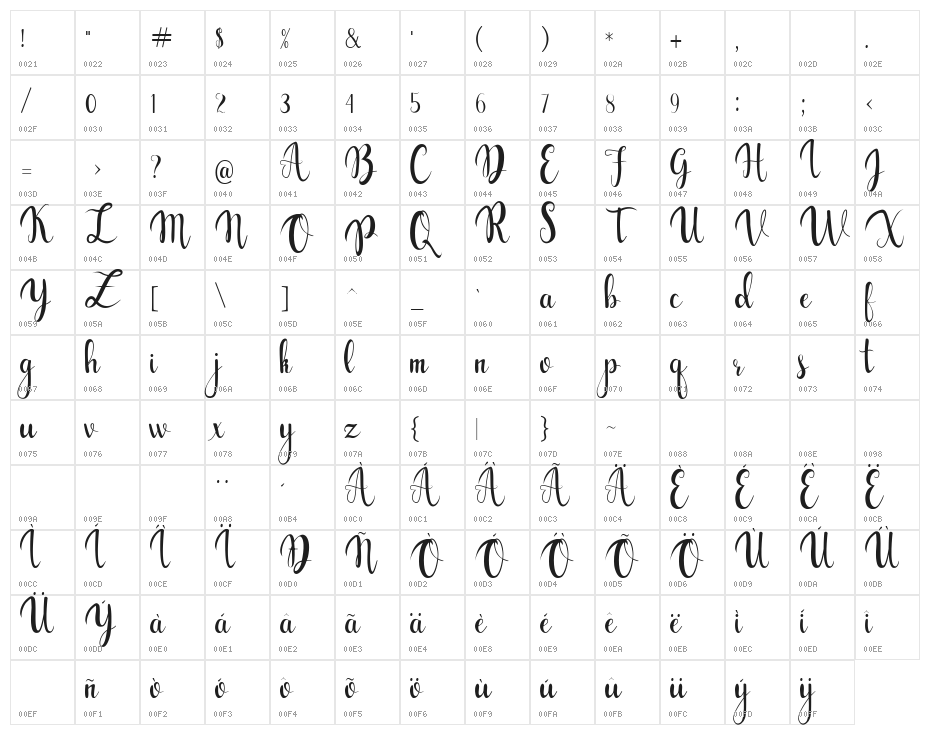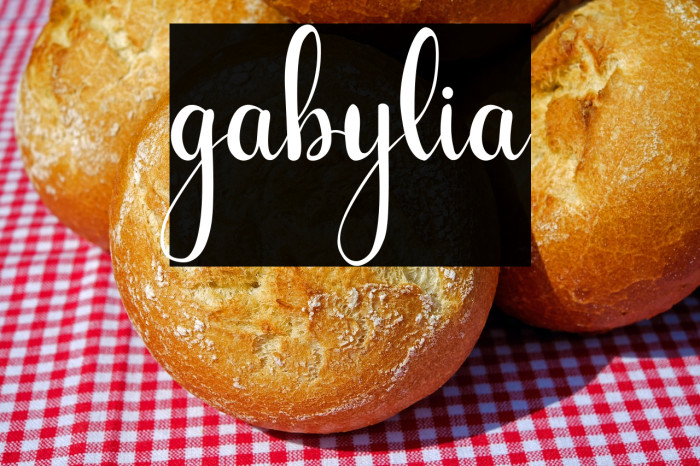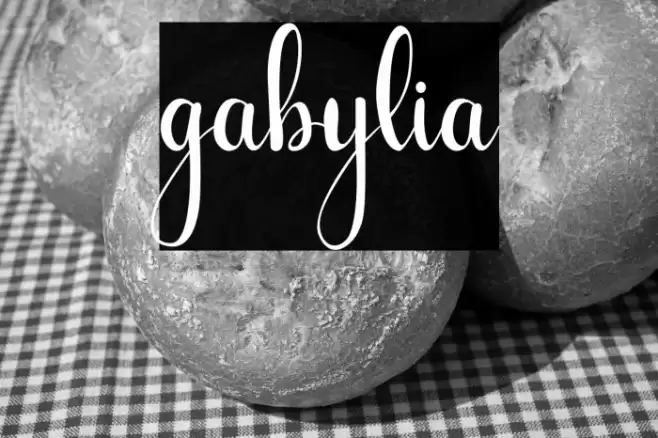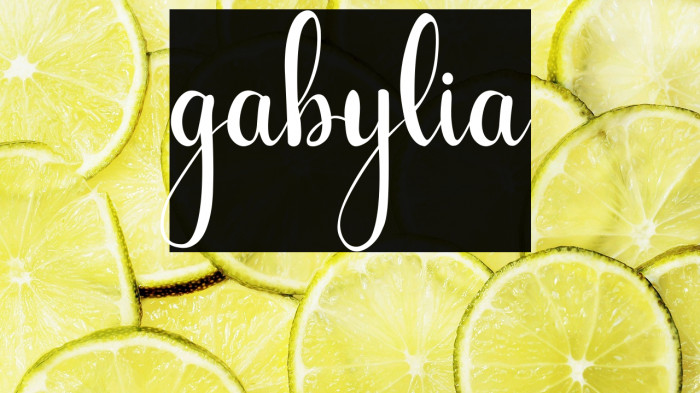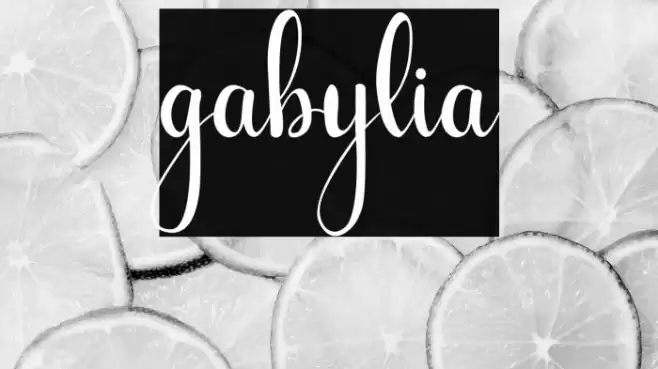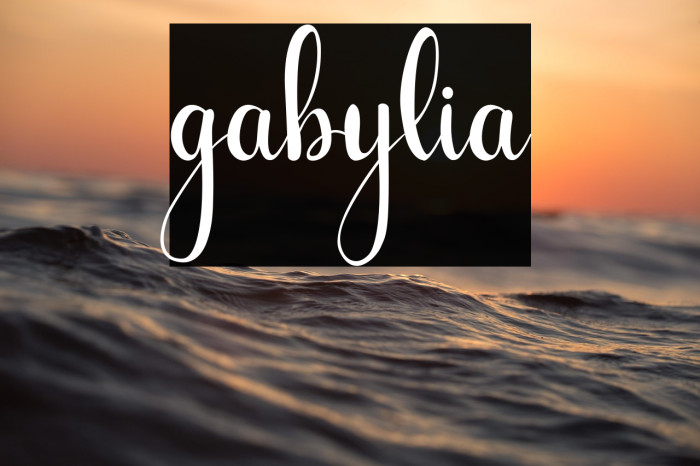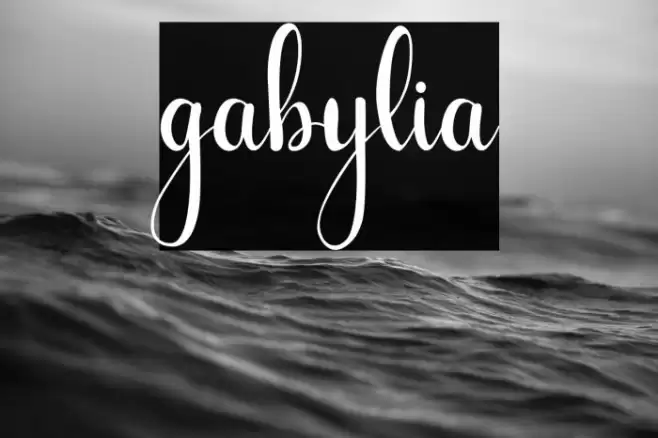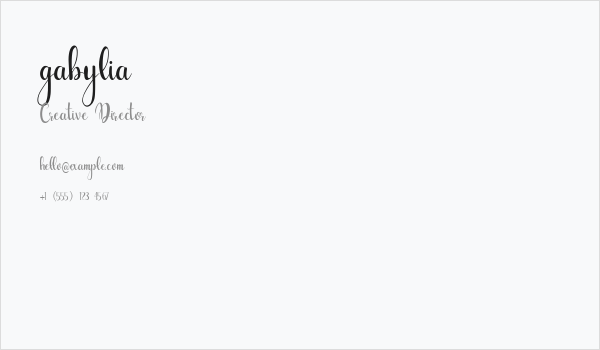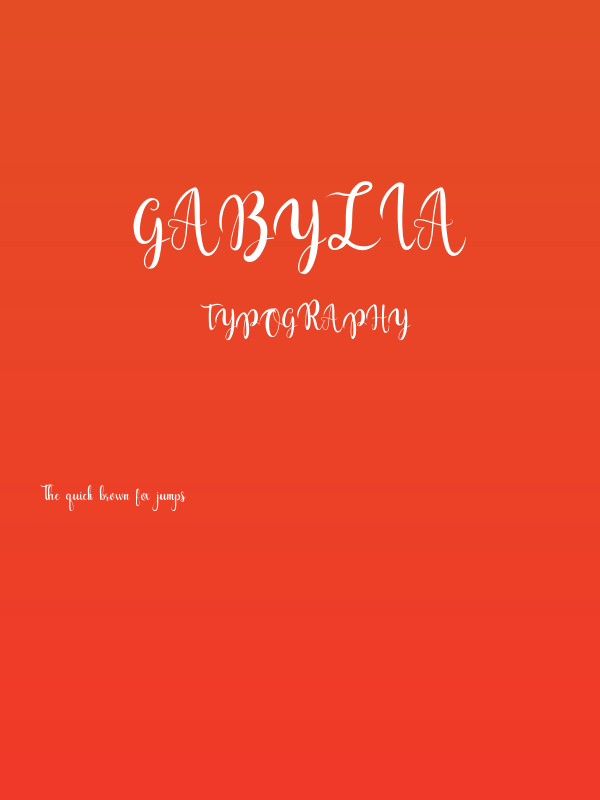
gabylia Font
gabylia Description
This elegant script font features a flowing, cursive style with a modern twist. The uppercase letters are characterized by their tall, slender forms with graceful loops and swashes, giving them a sophisticated appearance. The lowercase letters maintain a consistent flow, with some characters extending below the baseline, adding to the font's dynamic nature. The numerals are clear and easy to read, while the special characters complement the overall design with their stylish curves. This font is perfect for projects that require a touch of elegance and creativity.
| Proposed Projects | Ideal for wedding invitations, branding, greeting cards, and elegant logos. |